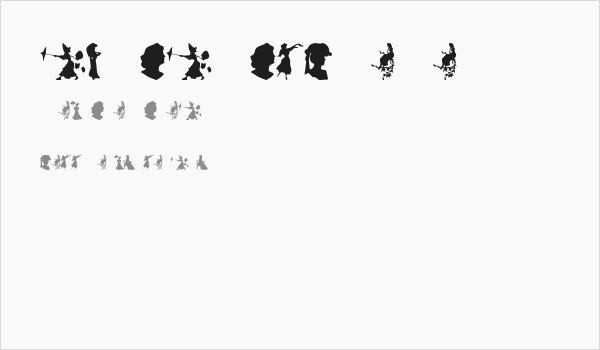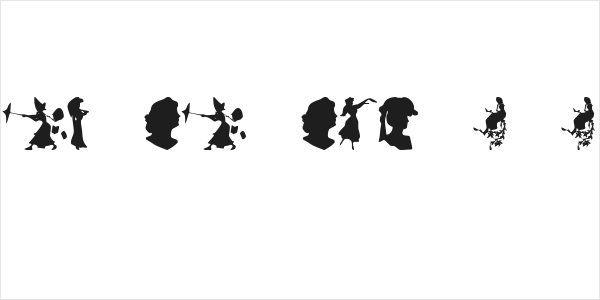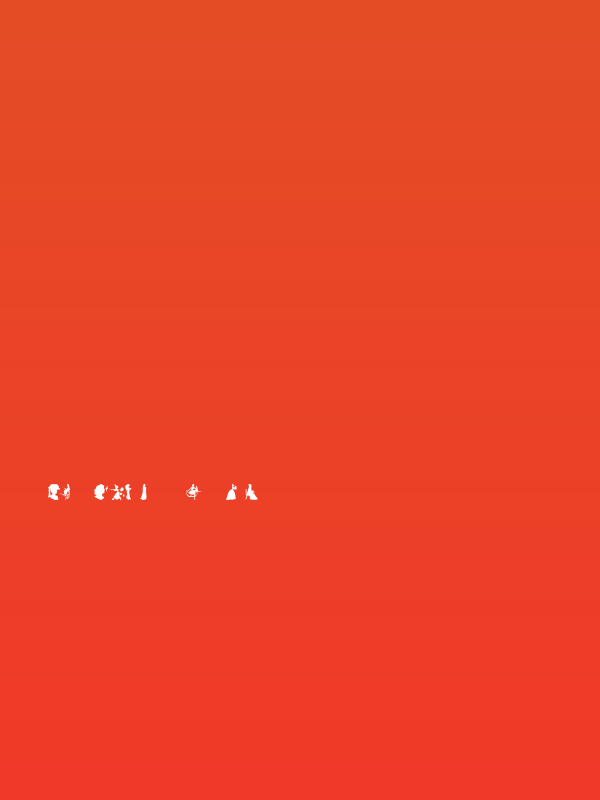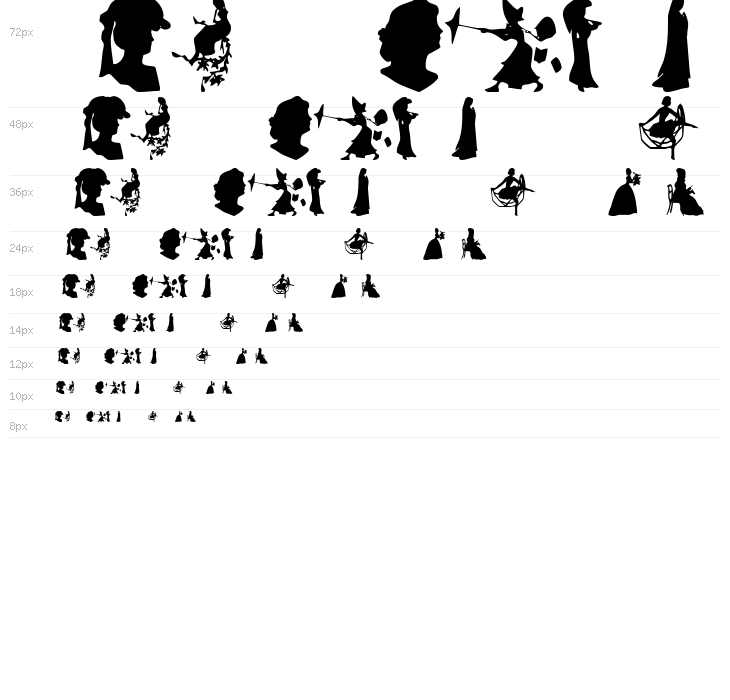
ck_vic-silhouette Font
ck_vic-silhouette Description
A decorative font composed of detailed Victorian-style silhouettes, featuring figures in period dress, various poses, and profile portraits, all rendered in solid black shapes.
| Overall Style | Vintage, Decorative |
| Use Case | Logos, Headlines, Themed graphics, Decorative accents |
| Proposed Projects | Event invitations, historical posters, theatrical programs, vintage branding, decorative headings. |